Best Holiday Canva Fonts: Spooky Halloween to Christmas Cursive Fonts
The holidays are basically an excuse to play dress-up with your designs. Whether it’s spooky fonts for October, or a pretty Christmas cursive font for December, the right typeface makes your graphics feel festive in seconds.
If you’re designing party invites, Pinterest pins, or even small business marketing, Canva has an amazing lineup of fonts (many are totally free!). Below, I’ve rounded up the best Canva fonts for Halloween chills and Christmas cheer, with font pairings that will make your designs pop.
Best Halloween Canva Fonts (Spooky, Scary & Creepy Fonts)
Halloween is all about drama: bold, dripping, gothic, and creepy lettering that feels straight out of a horror movie. Canva has so many great Halloween fonts, from horror fonts to playful scary fonts that are still totally readable.
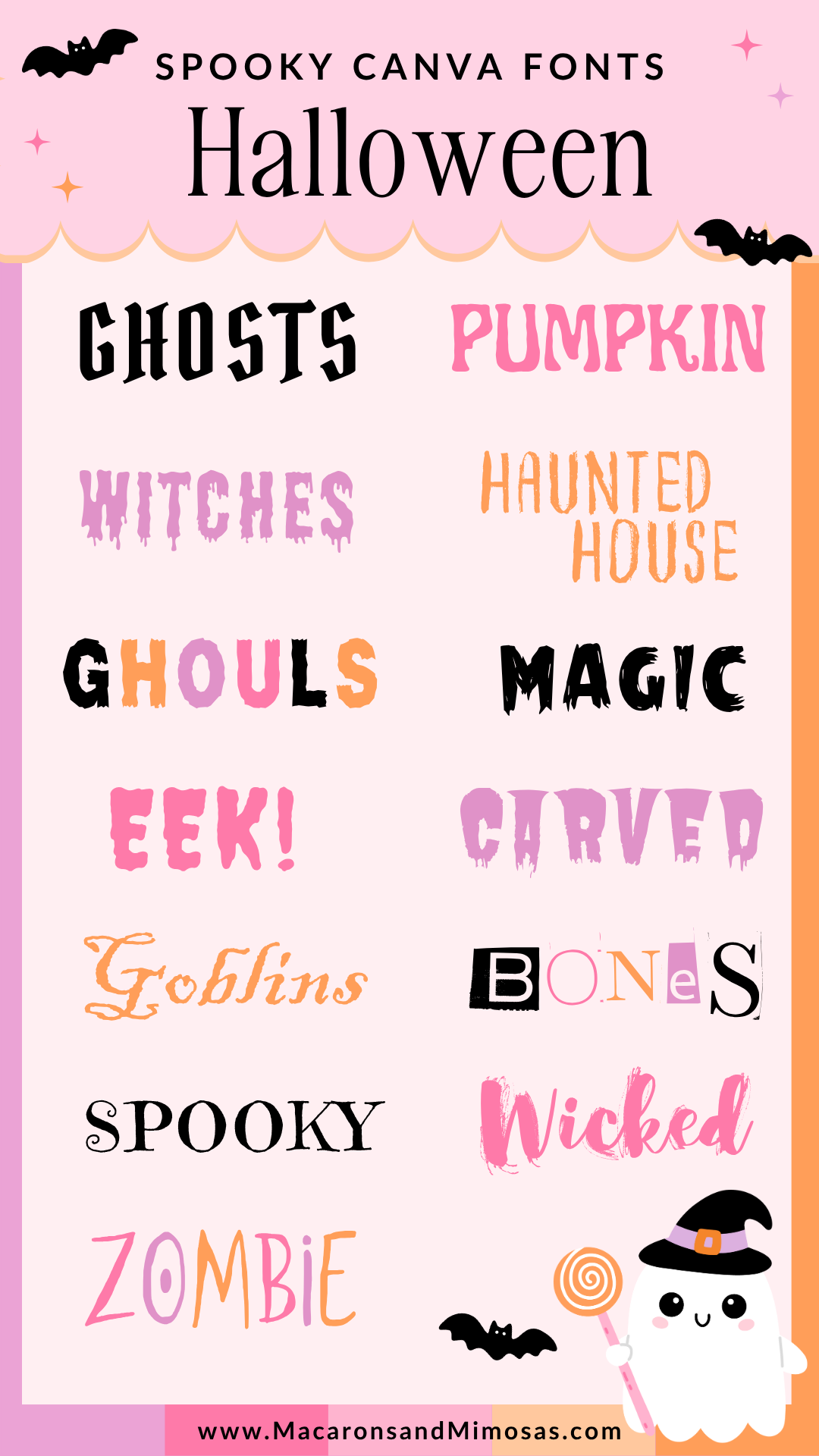
Pirata One – Pirate-meets-gothic with sharp edges that feel perfect for treasure maps or haunted ship invites.
Shlop – the drippy goo classic; the ultimate creepy font
Scary Stories – scratchy, eerie handwriting with a thriller vibe
Jeepers – cartoony & fun, perfect for less-scary Halloween invites
ITC Blackadder – gothic, witchy script (your potion label font!)
Sweet Dreams – a spooky but whimsical option for kid-friendly designs
Inside – Bold, eerie, and mysterious, this one has true creepy font vibes for posters or haunted house flyers.
Art Nuvo – vintage elegance with haunted mansion vibes
Max Somsin – distorted, hand-drawn, slightly unhinged (in the best way)
Was Monster – bold and monstrous, perfect for headings
Butcherman – zombie apocalypse energy — a true horror font
Drunken Hour – chaotic, distressed, messy fun
Berow Grunge – textured, rugged, creepy vibes
💡 Pro tip: Combine one bold scary font (like Butcherman) with a spooky cursive script (like ITC Blackadder) to create a balance between creepy and stylish.
Best Christmas Canva Fonts (Jolly & Elegant)
On the flip side, Christmas is all about warmth, elegance, and that cozy handwritten feel. Canva is packed with Christmas cursive fonts and bold serif options that make your designs look instantly festive.
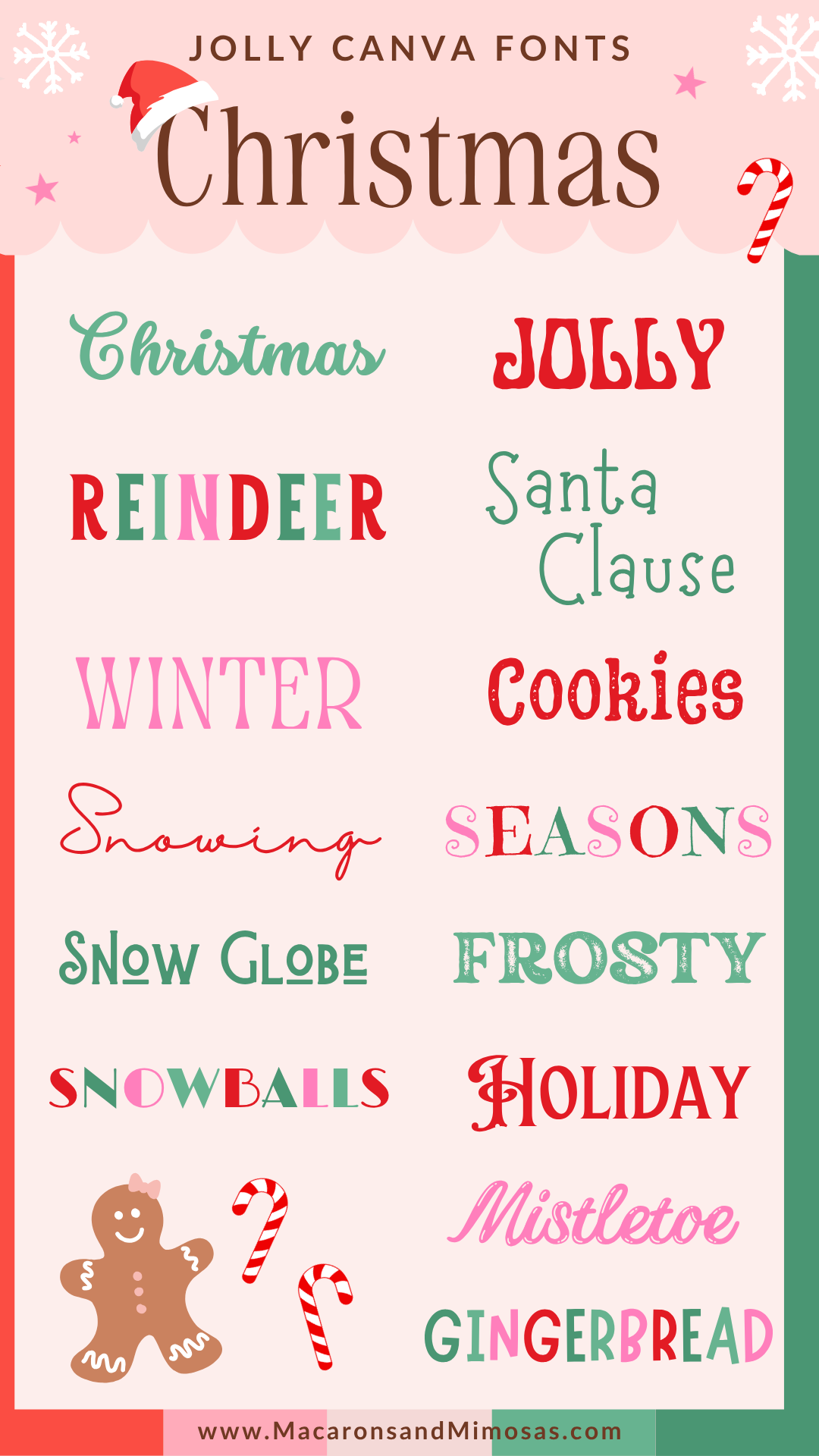
Stars & Love – bubbly, playful script that feels cheerful and bright.
Milestone – bold retro block letters for “Merry” moments
Awesome Lathusca – elegant swashes for classic holiday greetings.
Halimum – soft, natural handwriting; cozy card energy.
Badhorse – rustic farmhouse serif that reads well in headers.
Limelight – retro postcard lettering (snow-globe energy!)
Art Nuvo – vintage elegance that also works for Christmas
Moonlight – fun and cute playful font
Hatter Dirt – rustic serif, slightly distressed
Sweet Dreams – whimsical and playful, without being cursive.
Rundeck Texture – bold, textured sans-serif
EFCO Brookshire – timeless and classy
Kawthar – flowing calligraphy-inspired script
Marykate – chic, handwritten vibe
✨ Style tip: Use a bold block font (like Milestone) for “Merry” and a Christmas cursive font (like Stars & Love) for “Christmas.” It’s the ultimate holiday combo.
Christmas Canva Font Pairings
If you really want your holiday designs to shine, pair fonts together! A bold serif + a cursive script is the fastest way to get that “Pinterest-worthy” look.
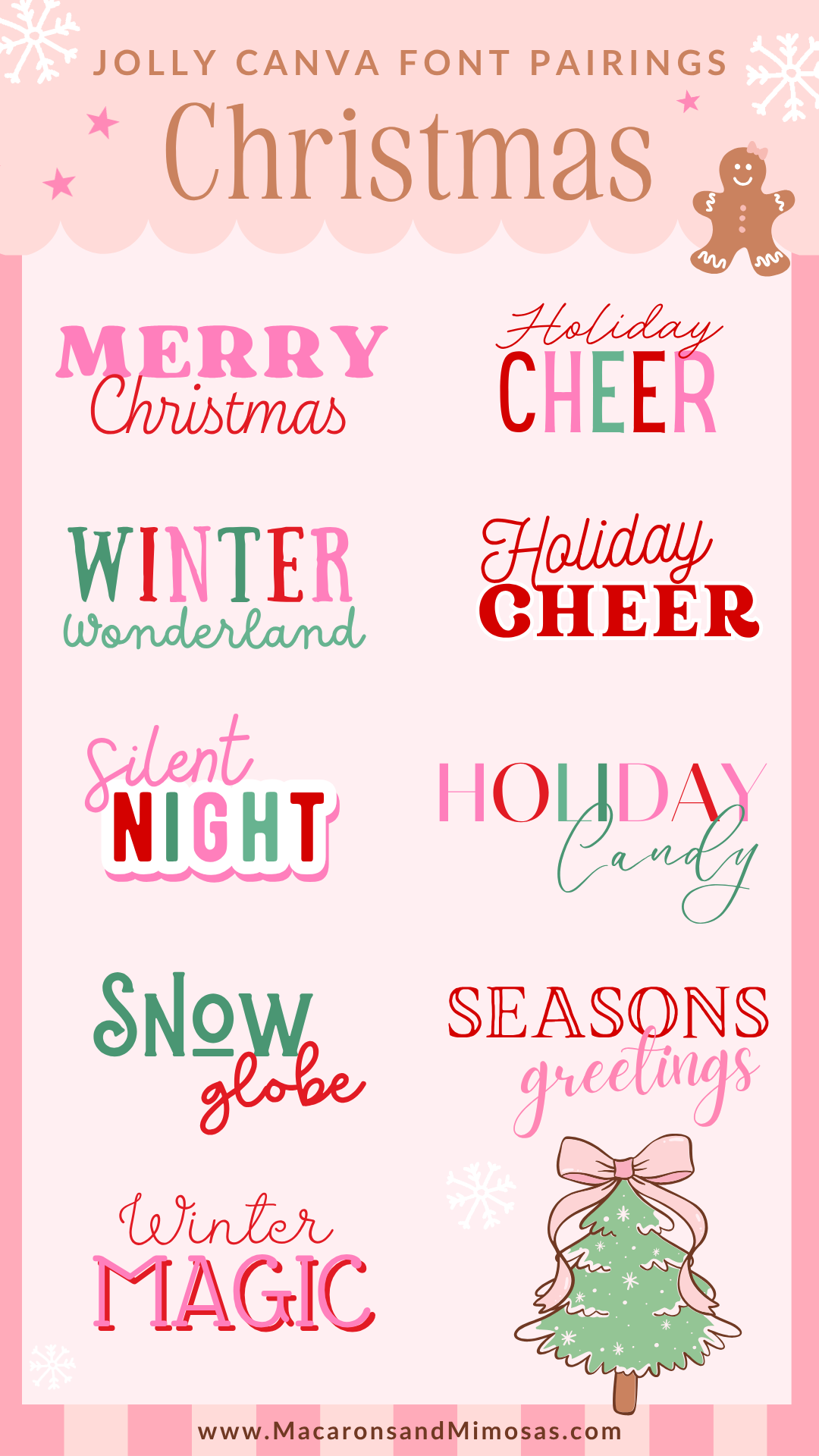
Sergio Trendy + Playland
Sunday + Dreaming Outloud
Bellaboo + Bernier
Badhorse + Glypher
Cretina + Glass Antiqua
Adventures Unlimited + Hey Gotcha!
Nickainley + Rundeck
Blacker Sans Display + Le Jour Script
Brixton Outline + Daydream
How to Use Holiday Fonts in Canva
- Open Canva and start a design (Pinterest Pin, Instagram post, or invitation).
- Add your holiday phrase (try “Spooky Season” or “Merry Christmas”).
- Search for your chosen font in the Canva dropdown.
- Mix a bold spooky font with a lighter script for contrast.
- Add seasonal elements (bats, pumpkins, snowflakes, or gingerbread cookies).
Holiday Fonts FAQs
Does Canva have scary fonts for Halloween?
Yes! Canva’s font library includes horror, creepy, and spooky fonts you can use for Halloween projects. Popular choices are Butcherman, Shlop, and Scary Stories, which instantly give posters, invitations, or social posts that haunted, eerie vibe.
What is the best Christmas cursive font in Canva?
Some of the prettiest Canva fonts for Christmas cards and holiday branding are Stars & Love, Nickainley, and Daydream. These cursive fonts are elegant, warm, and perfect for festive designs like gift tags, invitations, and Instagram graphics.
Are Canva fonts free to use?
Yes, many fonts in Canva are free! Even Pro fonts (included in Canva Pro) are licensed for both personal and commercial use. That means you can safely use them in business logos, marketing, and product graphics.
What Canva fonts look like handwriting?
For a handwritten, natural feel, try Halimum, Nickainley, or ITC Blackadder. These fonts mimic pen and ink styles and work beautifully for holiday greetings, DIY cards, or cozy seasonal branding.
What Canva font is best for creepy Halloween vibes?
If you want fonts that look straight out of a haunted house, go with Shlop or Butcherman. Both have bold, drippy lettering that instantly screams creepy Halloween style.
Sprinkle Some Holiday Magic
From scary fonts that drip with spooky energy to elegant Christmas cursive fonts that twinkle with holiday charm, Canva has everything you need to make your seasonal designs shine. Swap in one of these festive picks, and you’ll have graphics that feel on-theme, polished, and oh-so-pinnable.